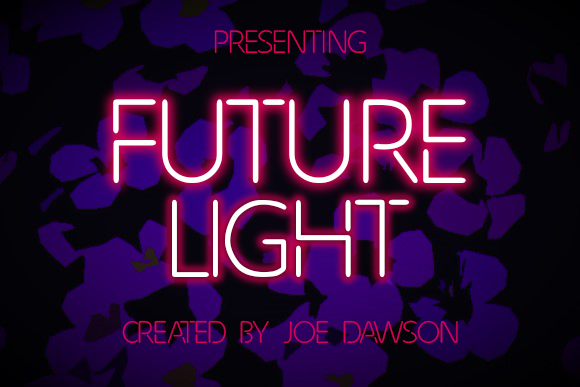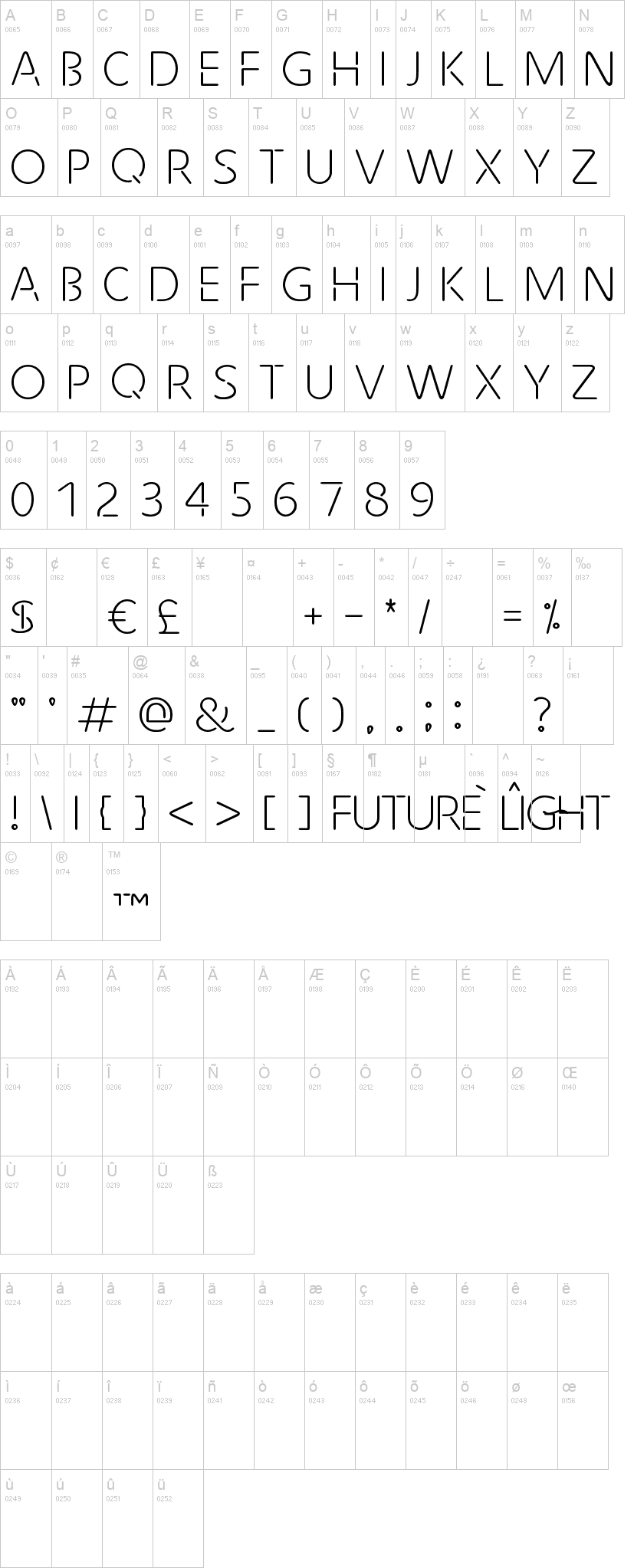
Future Light Italic.ttfNote of the authorFuture Light is a cyber punk styled display font. Its dynamic future-neon styled aesthetic will add a cool touch to all your designs and sci-fi themes.